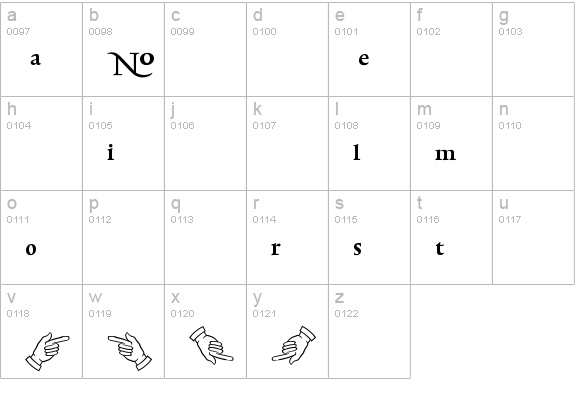
TriniteNo3-MediumCondPi font is a stylish and versatile typeface that is perfect for a wide range of design projects. With its clean lines and modern aesthetic, this font can add a touch of sophistication to any design. The medium condensed style of the font gives it a sleek and streamlined look, making it ideal for headlines, logos, and other prominent text elements. One of the standout features of TriniteNo3-MediumCondPi font is its versatility. It can be used in both print and digital projects, making it a great choice for designers who work across different mediums. Whether you're creating a poster, a website, or a branding project, this font will deliver a professional and polished look. But what sets TriniteNo3-MediumCondPi font apart is that it is freely available to download at FontsMarket.com. This means that you can use it in your projects without any cost. FontsMarket.com is a trusted source for high-quality fonts, and their collection includes a wide range of styles and designs. The fact that TriniteNo3-MediumCondPi font is available for free makes it even more appealing for designers on a budget. So, if you're looking for a versatile and stylish font that won't break the bank, look no further than TriniteNo3-MediumCondPi font. With its clean lines, modern aesthetic, and the fact that it is freely available to download at FontsMarket.com, this font is a must-have for any designer.